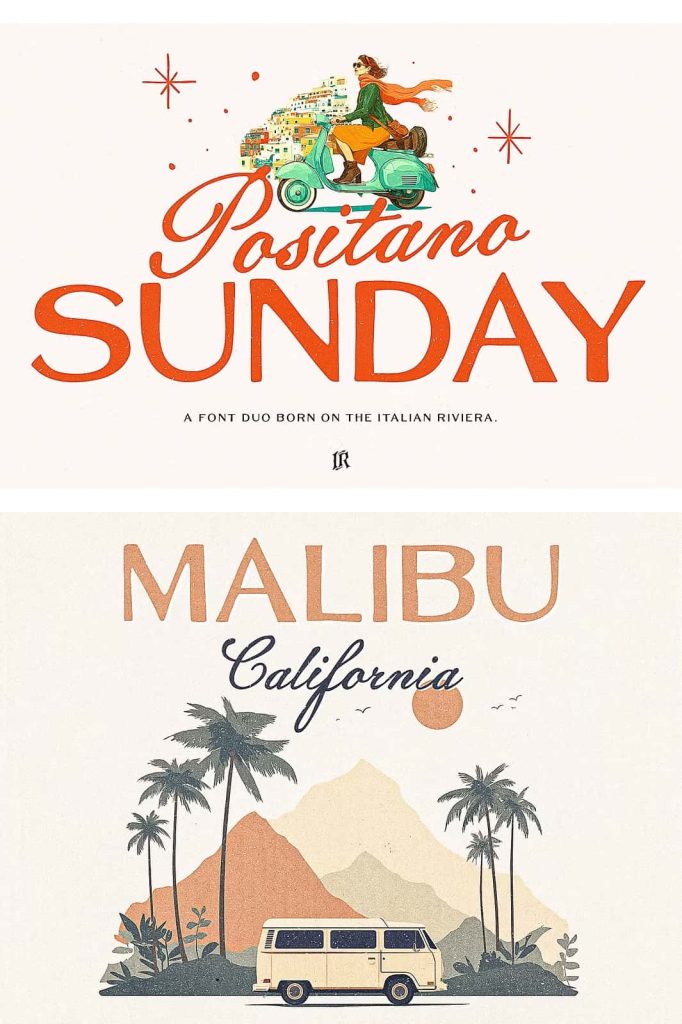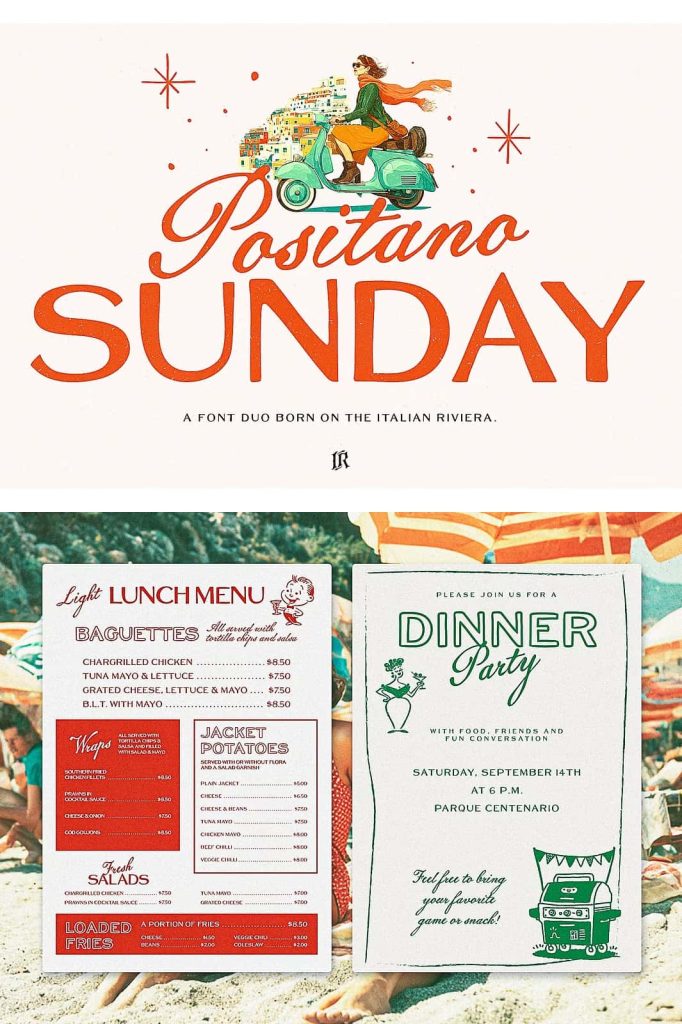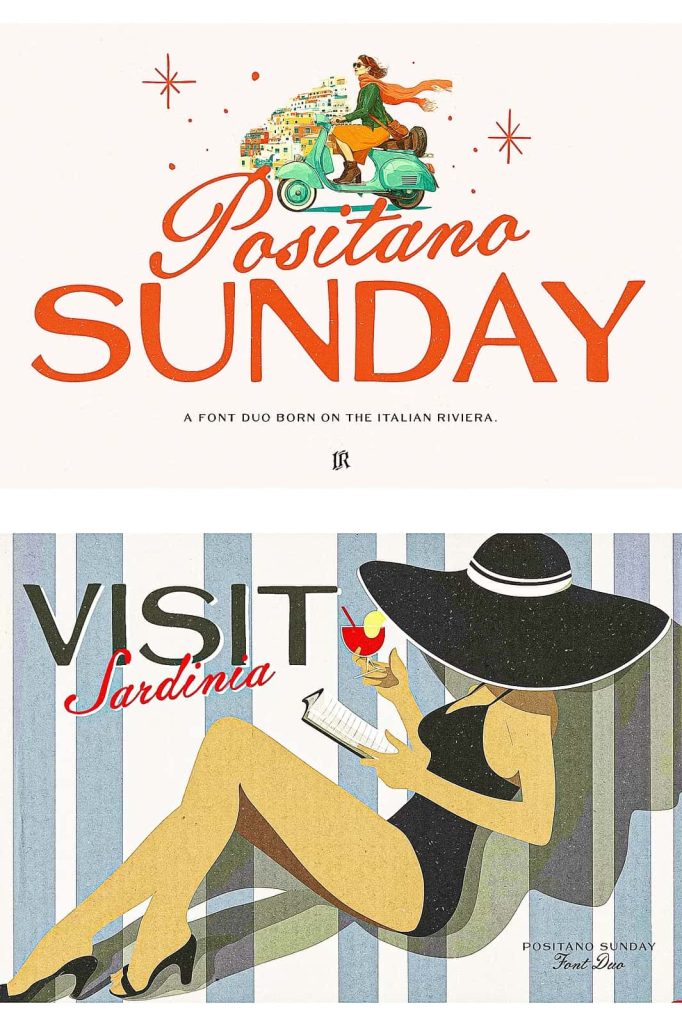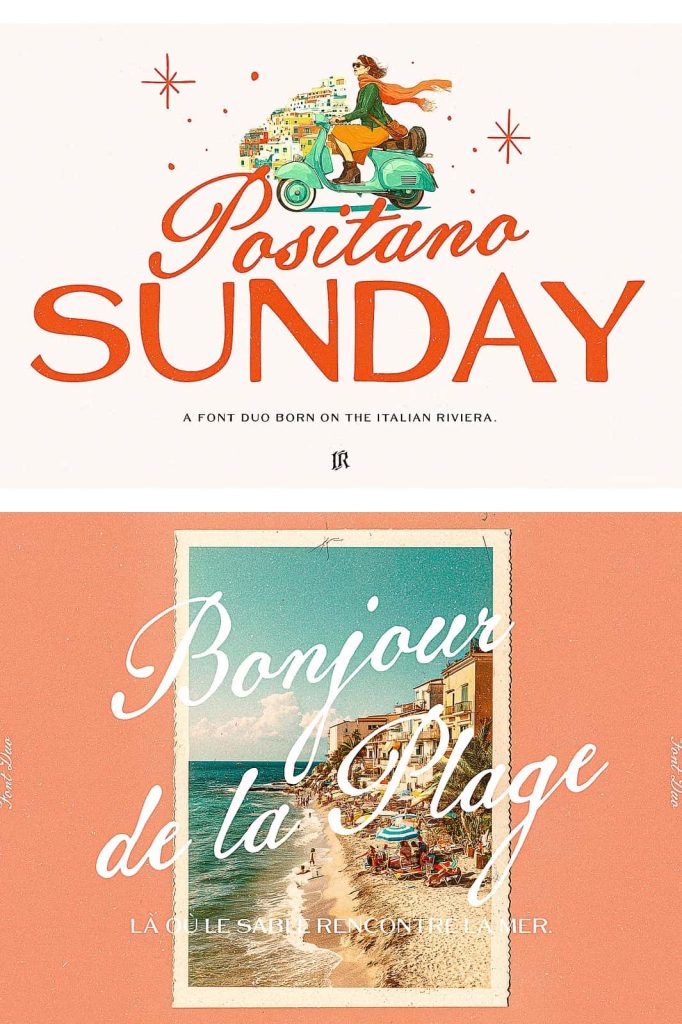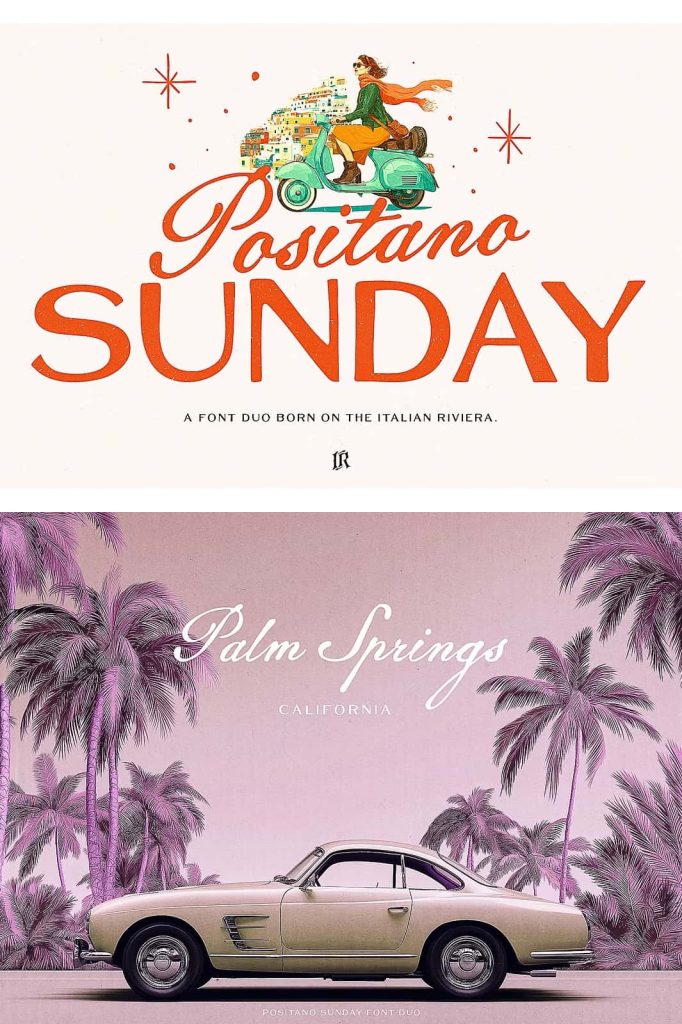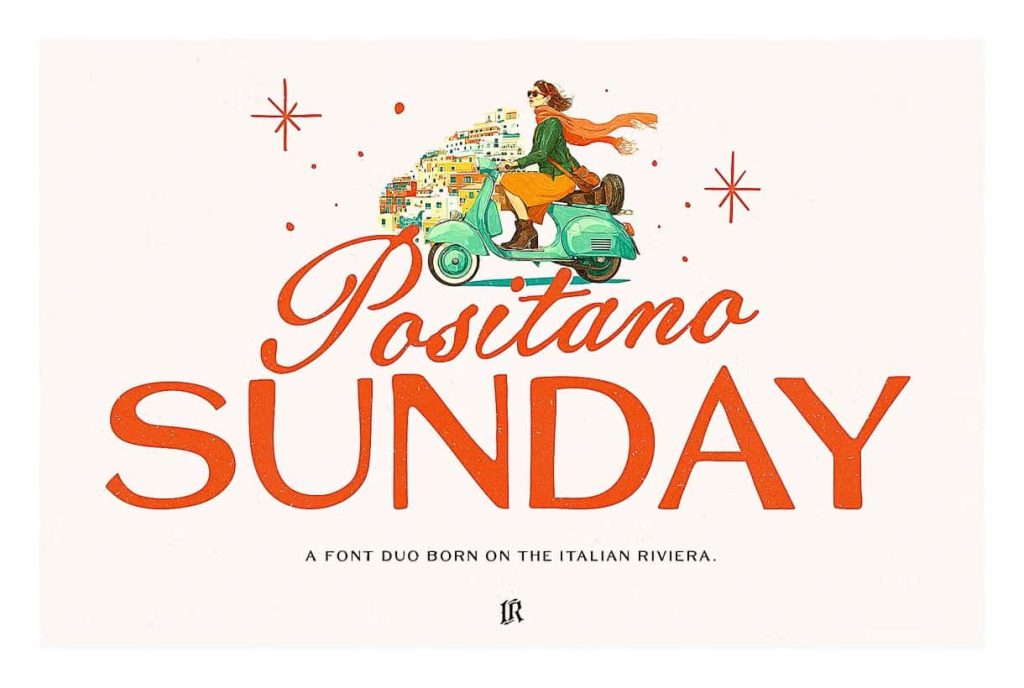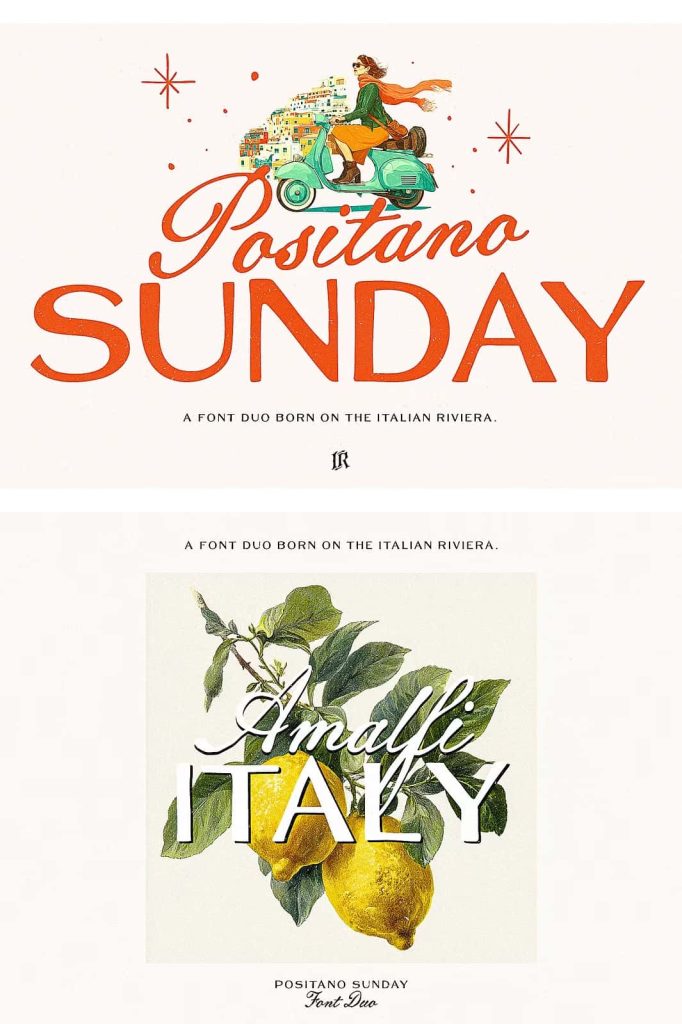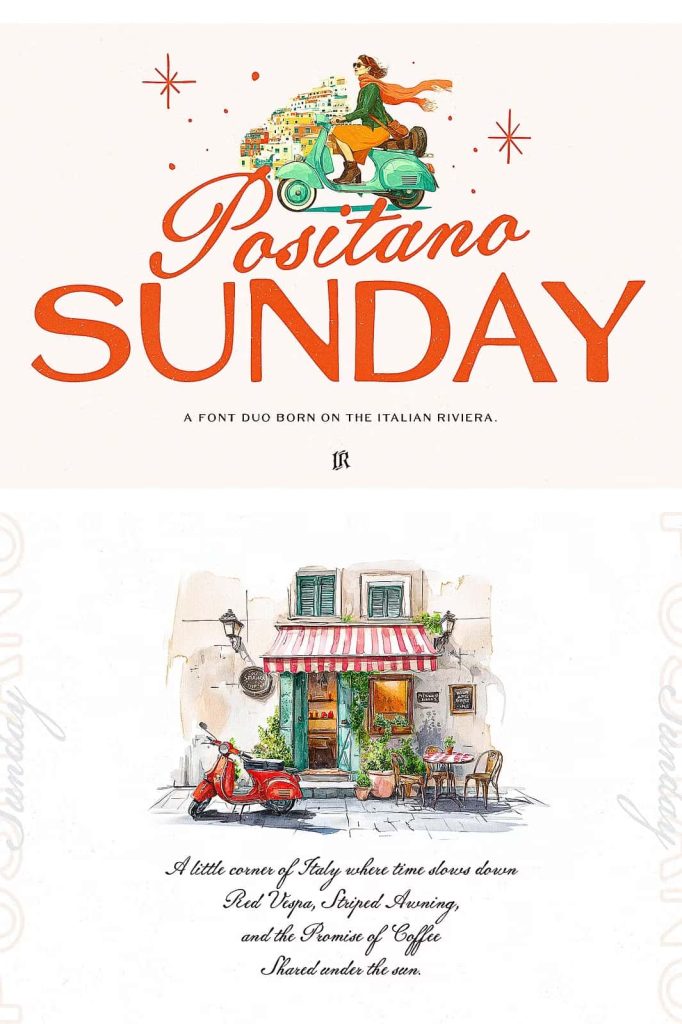
Positano Sunday Font Trio is a set of three typefaces inspired by the sunny Italian Riviera, vintage posters, and the charm of Mediterranean cafés and restaurants. This pack blends elegance with playfulness – perfect for branding, packaging, posters, or social media.